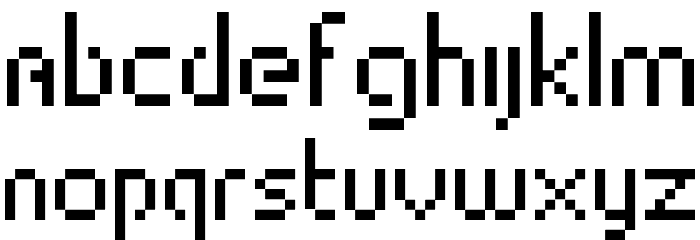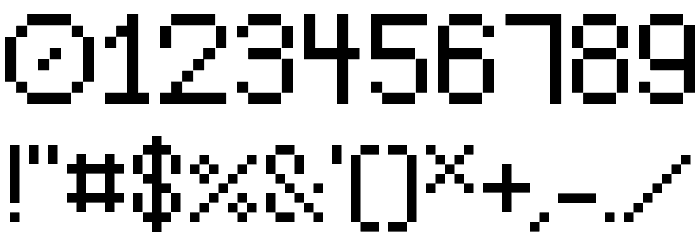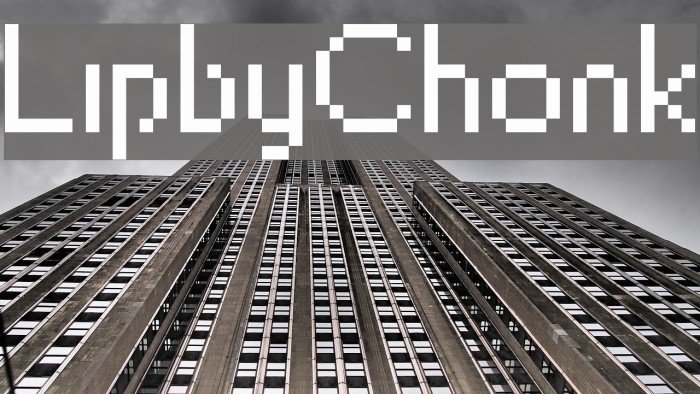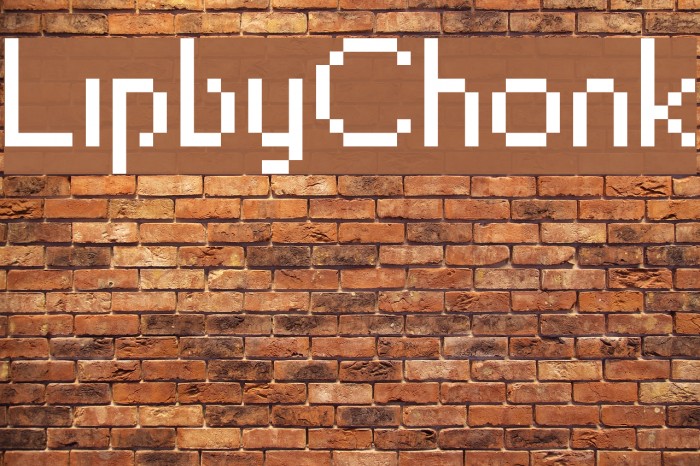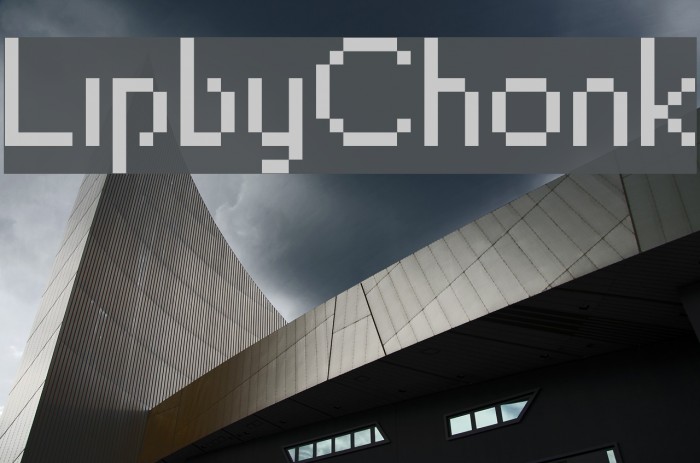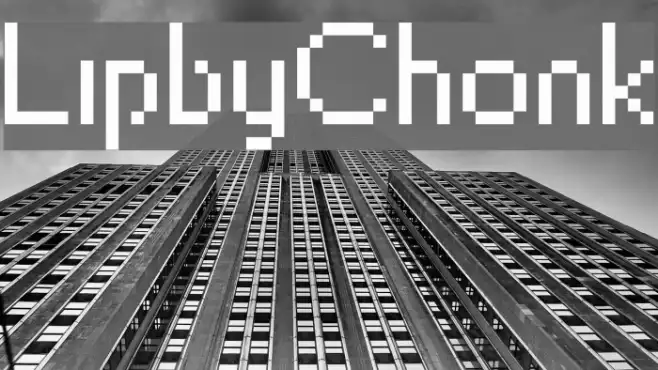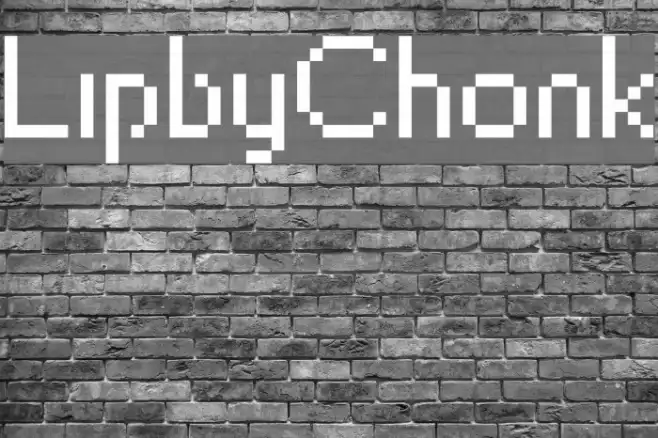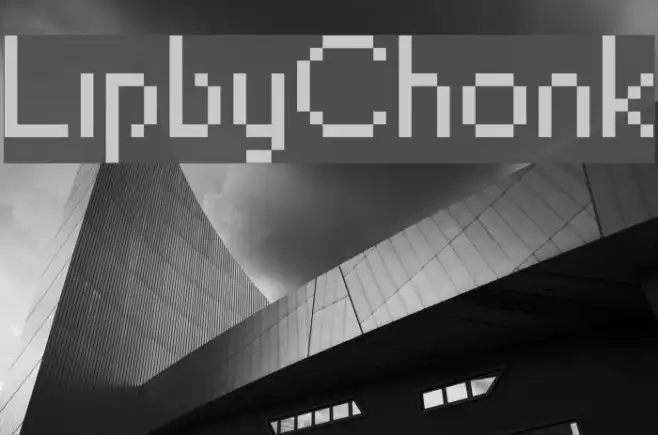
LipbyChonk Font
This font features a pixelated, blocky design reminiscent of early digital displays and retro video games. Each character is composed of small, square blocks, giving it a distinctly digital and geometric appearance. The uppercase and lowercase letters maintain a consistent height and width, contributing to a uniform and structured look. The numerals and special characters follow the same pixelated style, ensuring visual coherence across all elements. This font's nostalgic aesthetic is perfect for projects that aim to evoke a sense of vintage technology or digital art.
A pixelated, blocky font inspired by retro digital displays.
- Proposed Projects: Ideal for video game design, digital art projects, retro-themed posters, and tech-related branding.
- Overall Style: Vintage
- Use Case: Logos, Headlines, Digital Art